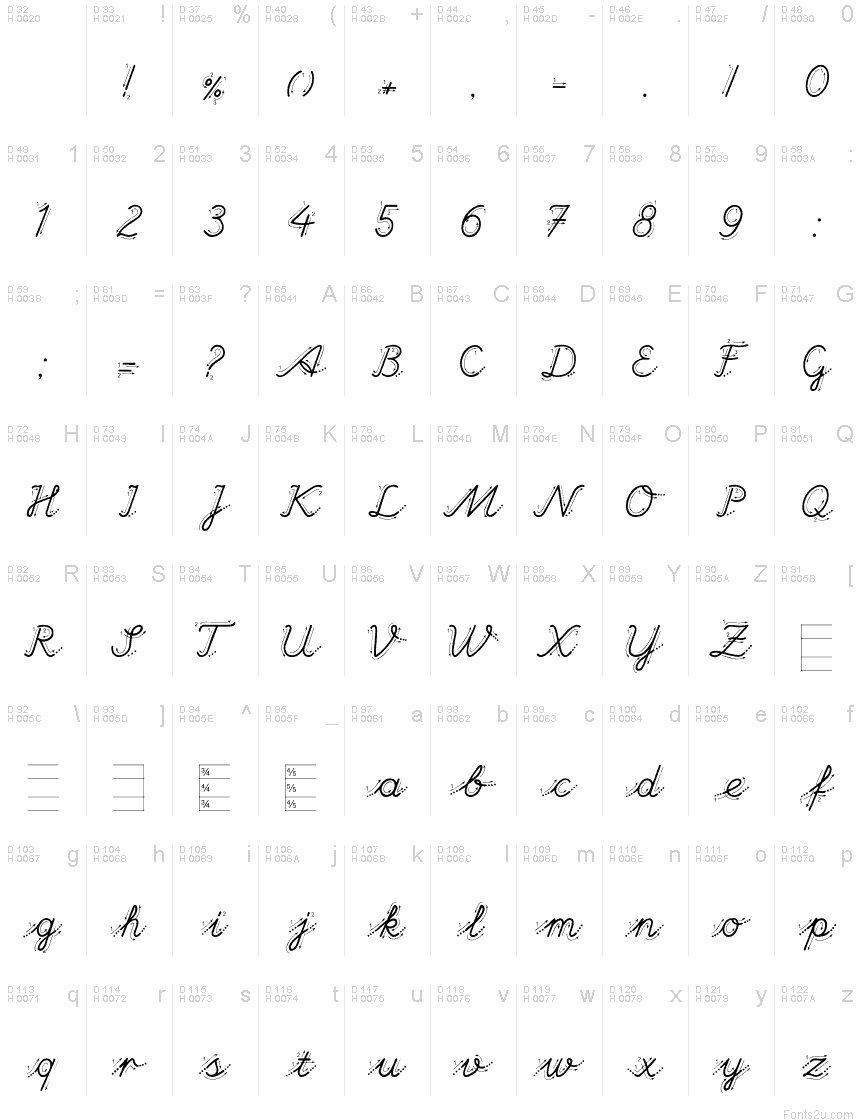
Hand Garden
Hand Garden font is a free decorative display typeface that turns handwriting practice marks into a lively design feature. Flowing script letters are laced with tiny arrows and dotted trails, so each word looks like a whimsical instruction sketch straight out of a creative notebook. The strokes feel inky and playful, adding motion and curiosity wherever they appear.
Using Hand Garden, headlines and short phrases instantly stand out on kids’ worksheets, educational posters, craft packaging, playful logos, social media graphics, and workshop flyers. This free font works best at larger sizes where the arrows and dots stay crisp; pair it with a clean sans serif for body copy to keep things readable while letting the script handle the fun.